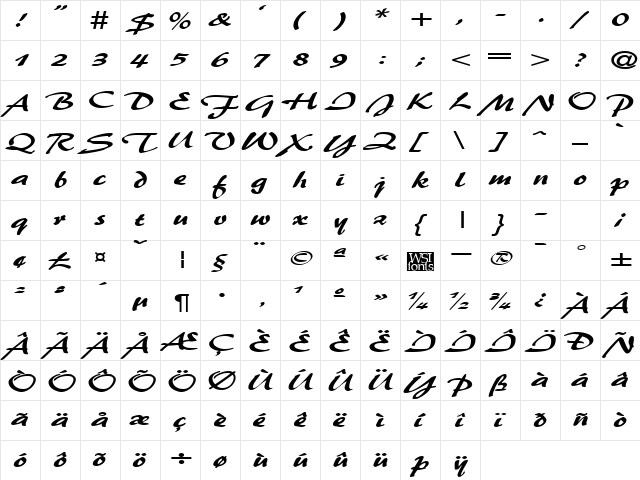
BrushFlashExpanded Regular Font Preview
BrushFlashExpanded Regular
BrushFlashExpanded Regular Font Details
Design Context for BrushFlashExpanded Typeface
BrushFlashExpanded flows with the natural rhythm of handwritten lettering, making it ideal for designs that call for warmth and personal expression.
Font Pairing: Combine BrushFlashExpanded with a simple geometric sans for maximum contrast — the tension between flowing curves and clean structure is a classic typographic pairing.
Pro Tip: Pair BrushFlashExpanded with a clean sans-serif for supporting text. The contrast between fluid script and geometric structure creates an elegant typographic hierarchy.